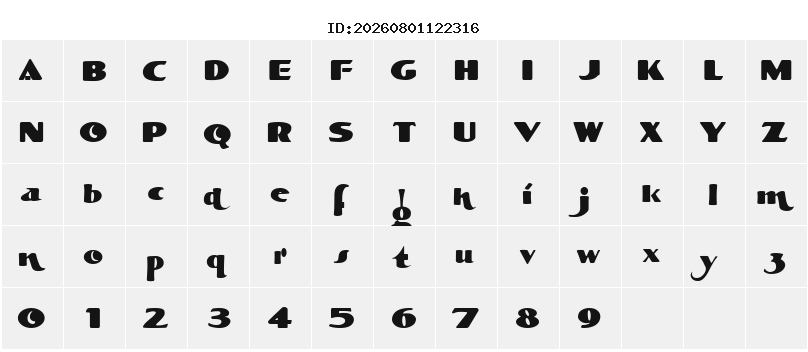
LHF Becker Rounded Block Preview
• Font Name: LHF Becker Rounded Block
• Font ID: LHF Becker Rounded Block
• Full Font Name: LHF Becker Rounded Block
• PostScript Name: LHFBeckerRoundedBlock
LHF Becker Rounded Block.ttf is a modern, elegant sans-serif font designed for ultimate readability and visual harmony. Perfect for branding, headlines, web design, and print materials.